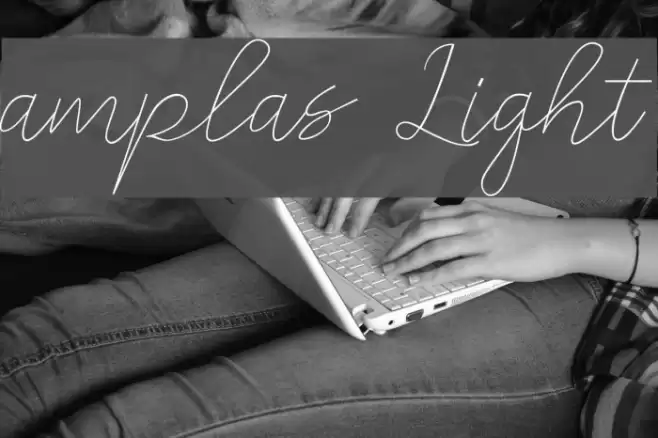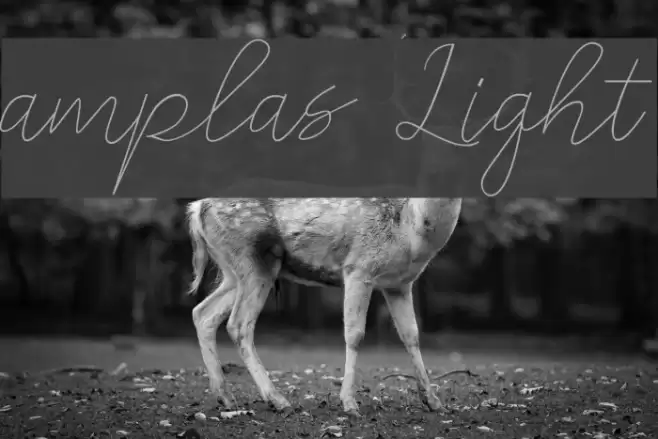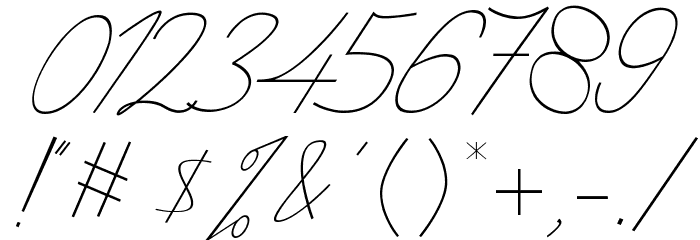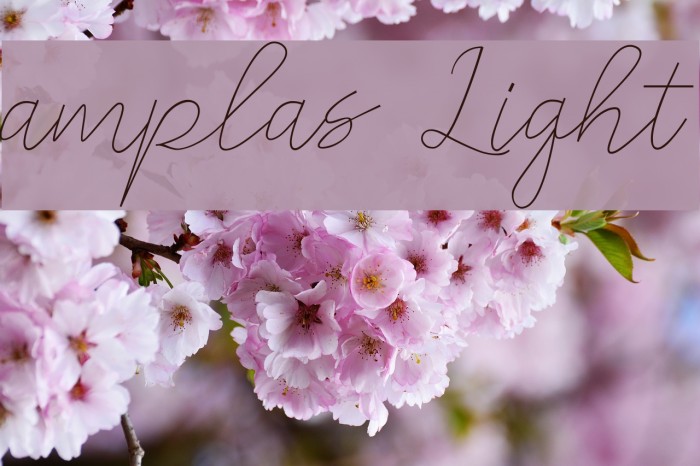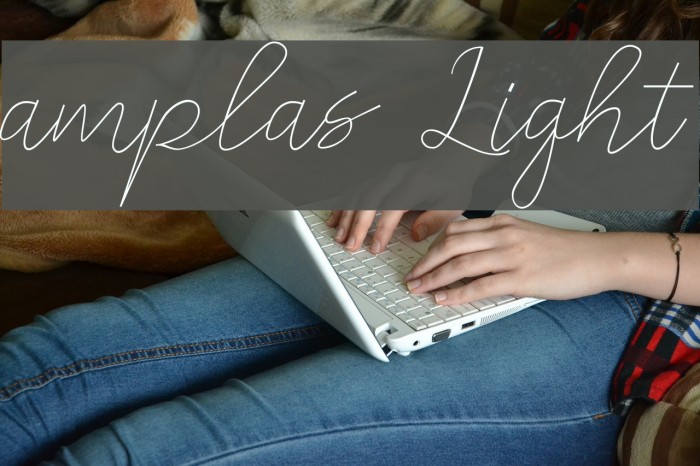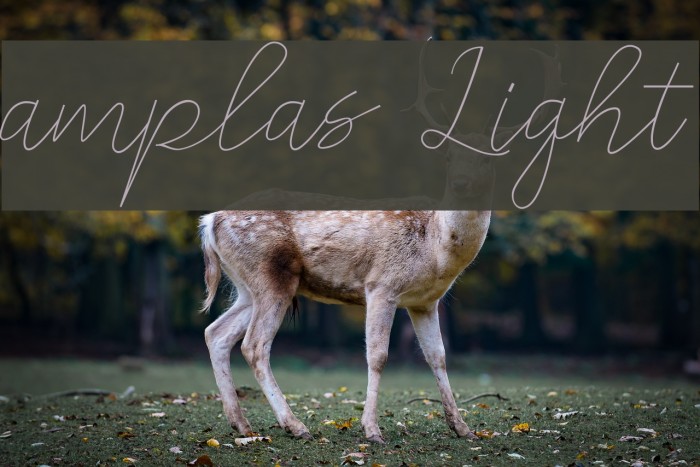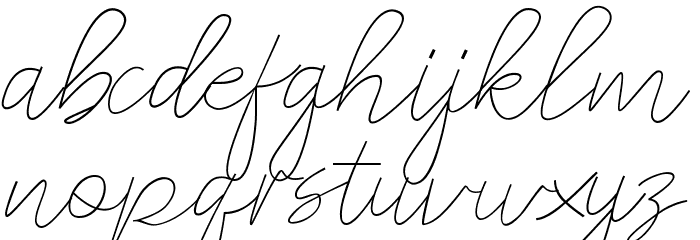
amplas Light Font
amplas Light Description
This font features an elegant and flowing script style, characterized by its smooth, continuous strokes that mimic the fluidity of handwriting. The letters are interconnected, creating a harmonious and cohesive look. The uppercase letters are slightly more elaborate, with graceful loops and curves, while the lowercase letters maintain a consistent and balanced form. The numerals and special characters follow the same cursive style, ensuring uniformity across all characters. This font exudes a sense of sophistication and charm, making it ideal for projects that require a personal and artistic touch.
An elegant, flowing script font with interconnected strokes and a handwritten feel from Uncategorized fonts.
- Proposed Projects: Ideal for wedding invitations, greeting cards, personal branding, and artistic projects.
- Overall Style: Elegant, Artistic
- Use Case: Logos, Invitations, Artistic projects